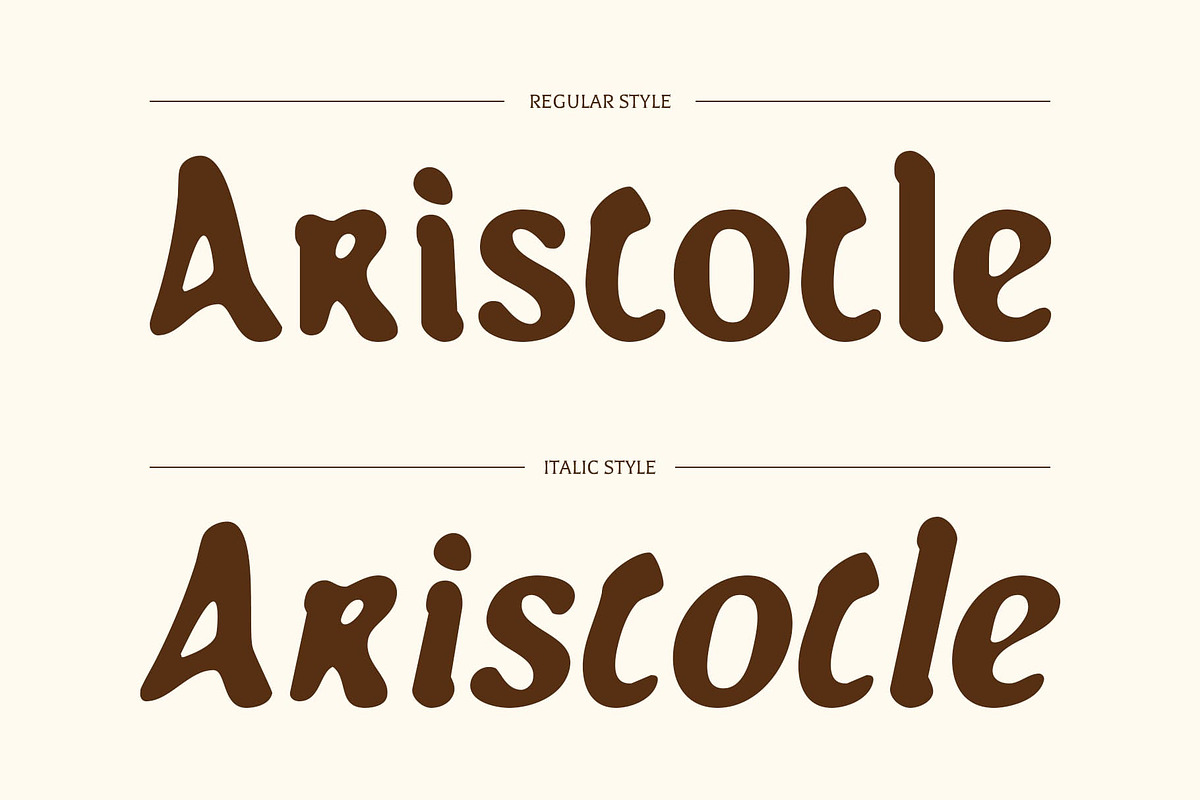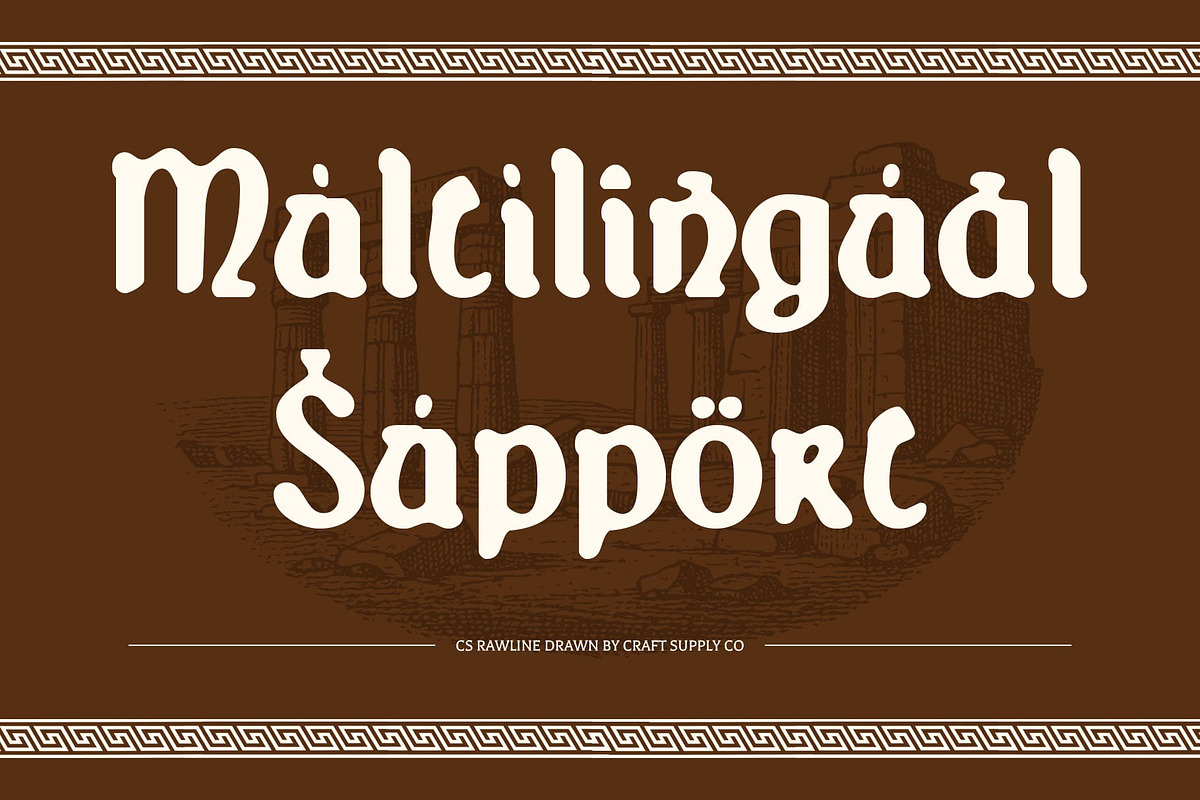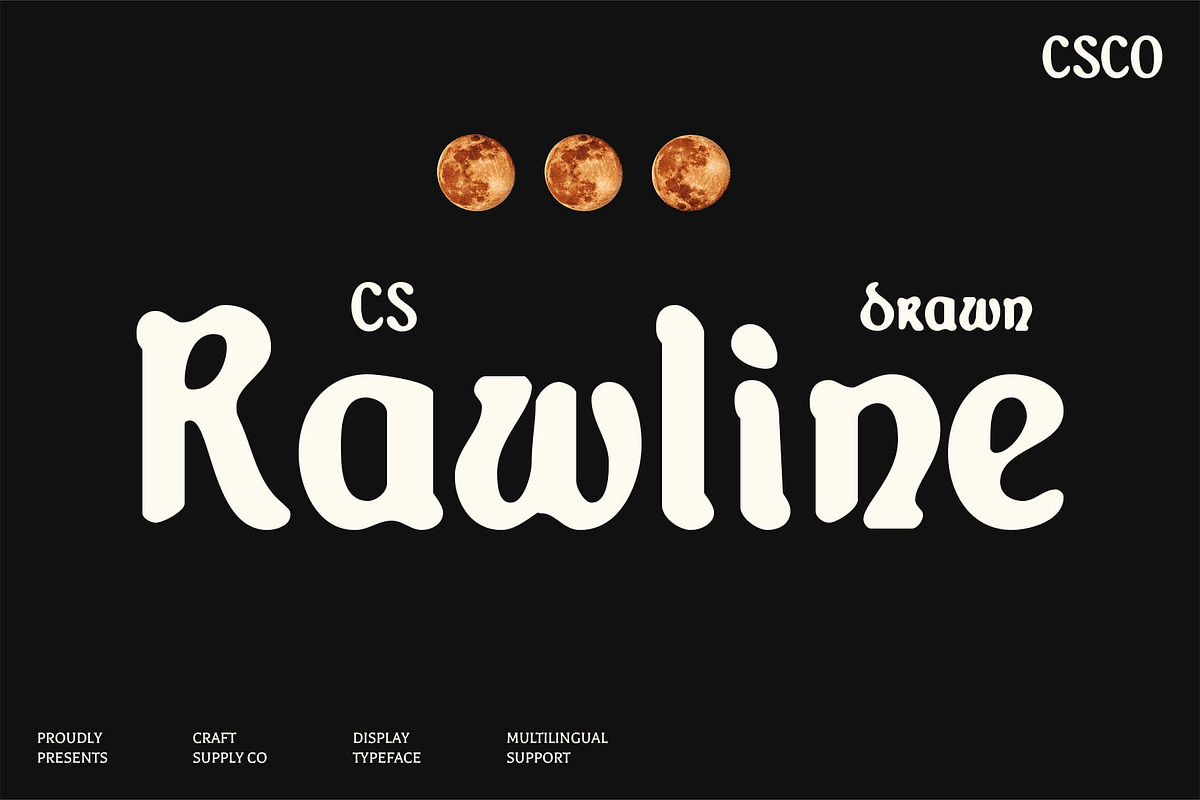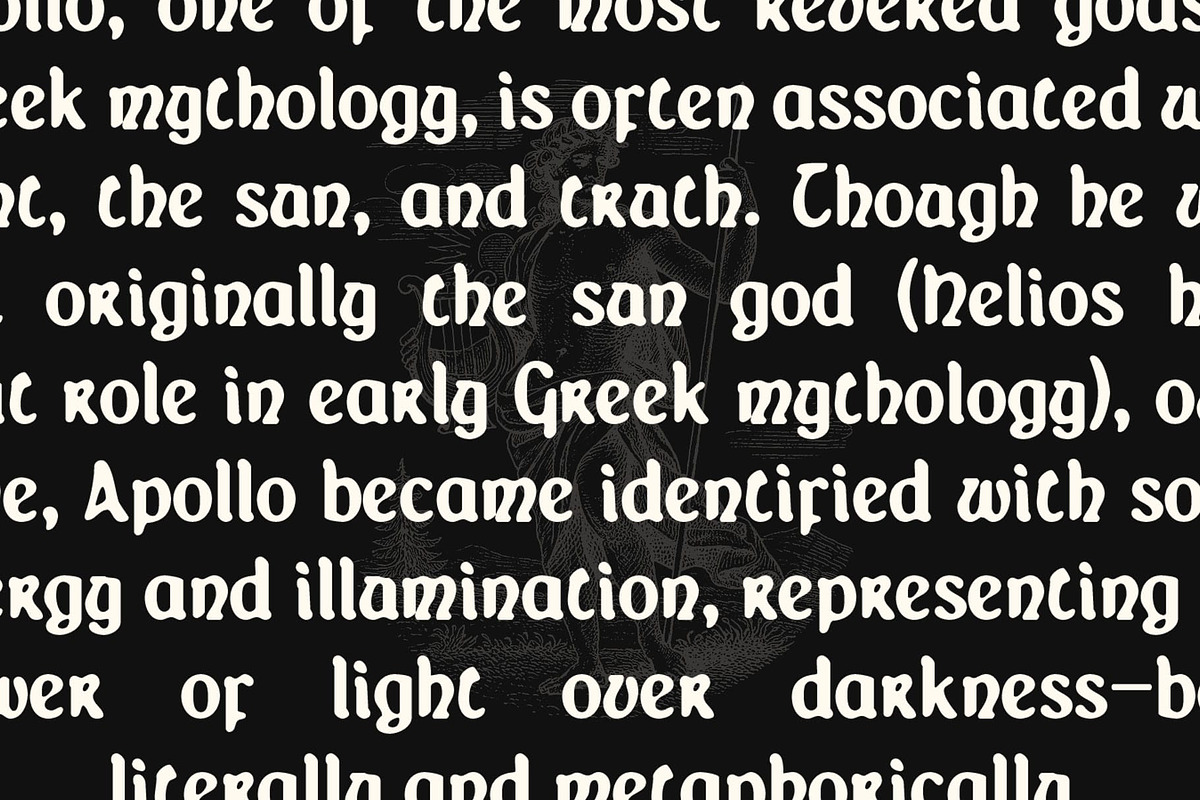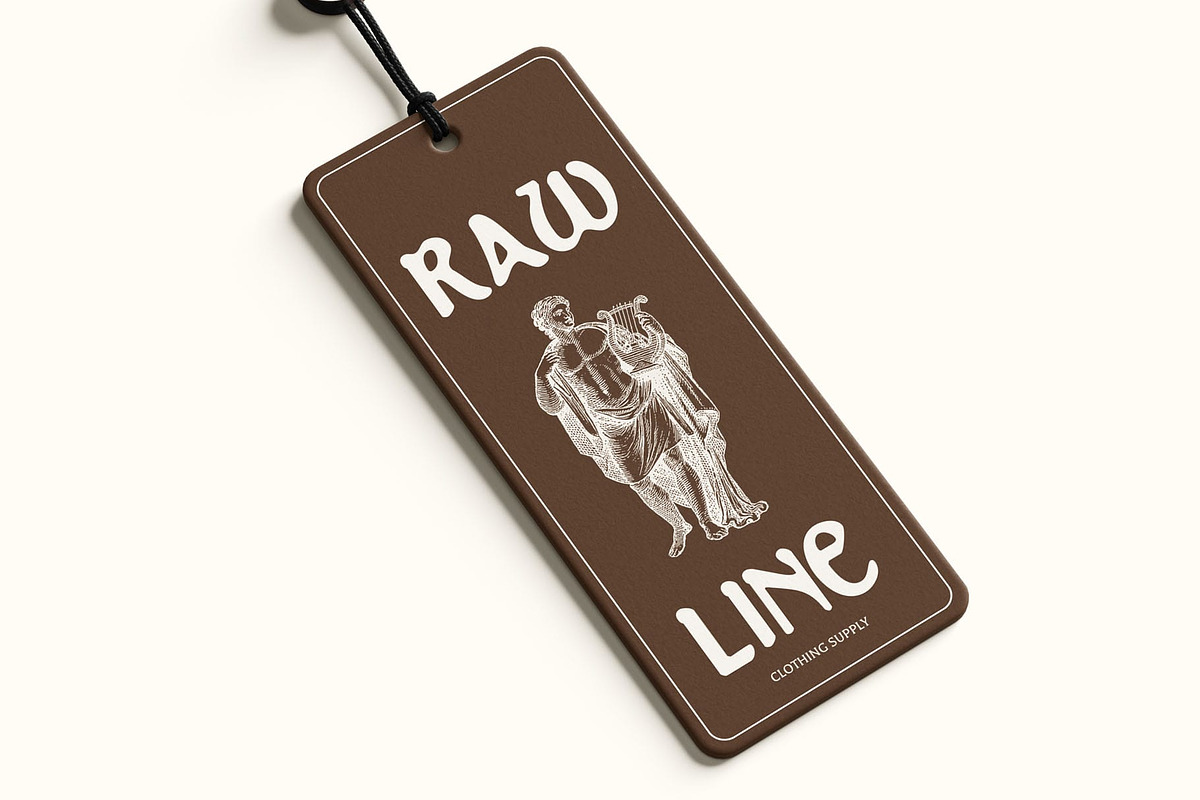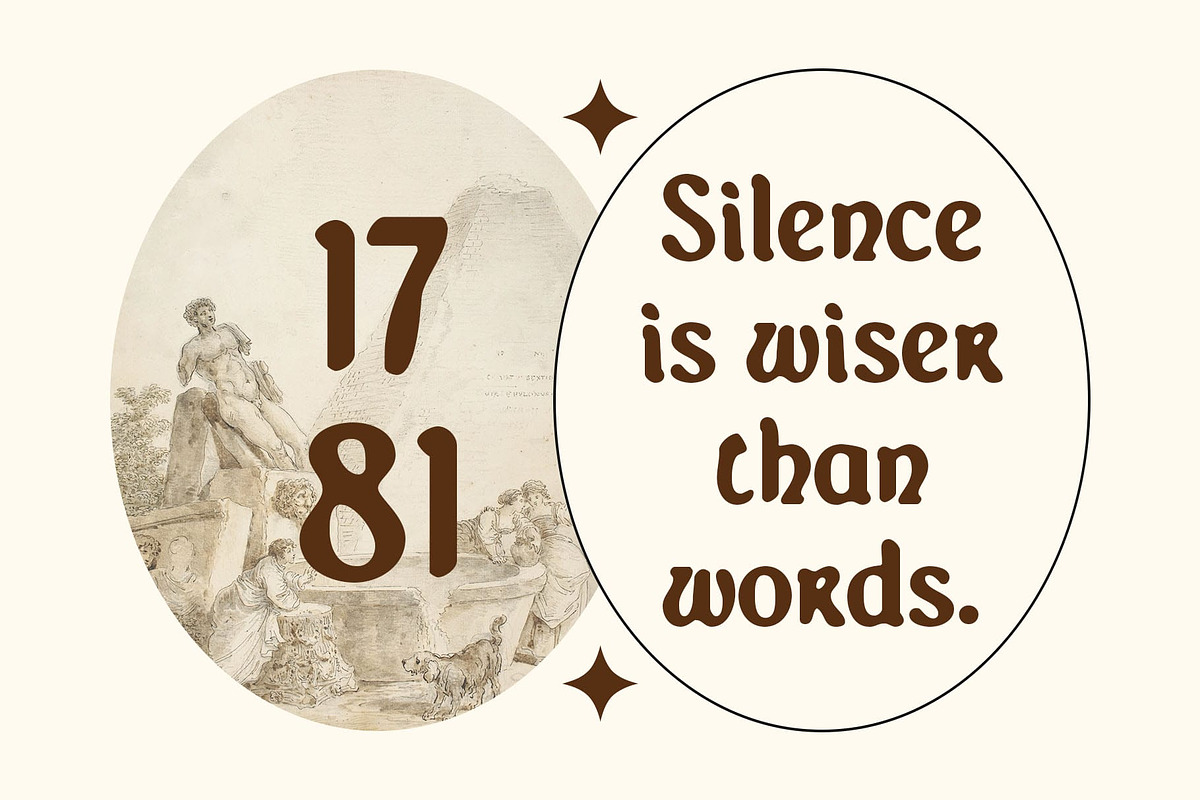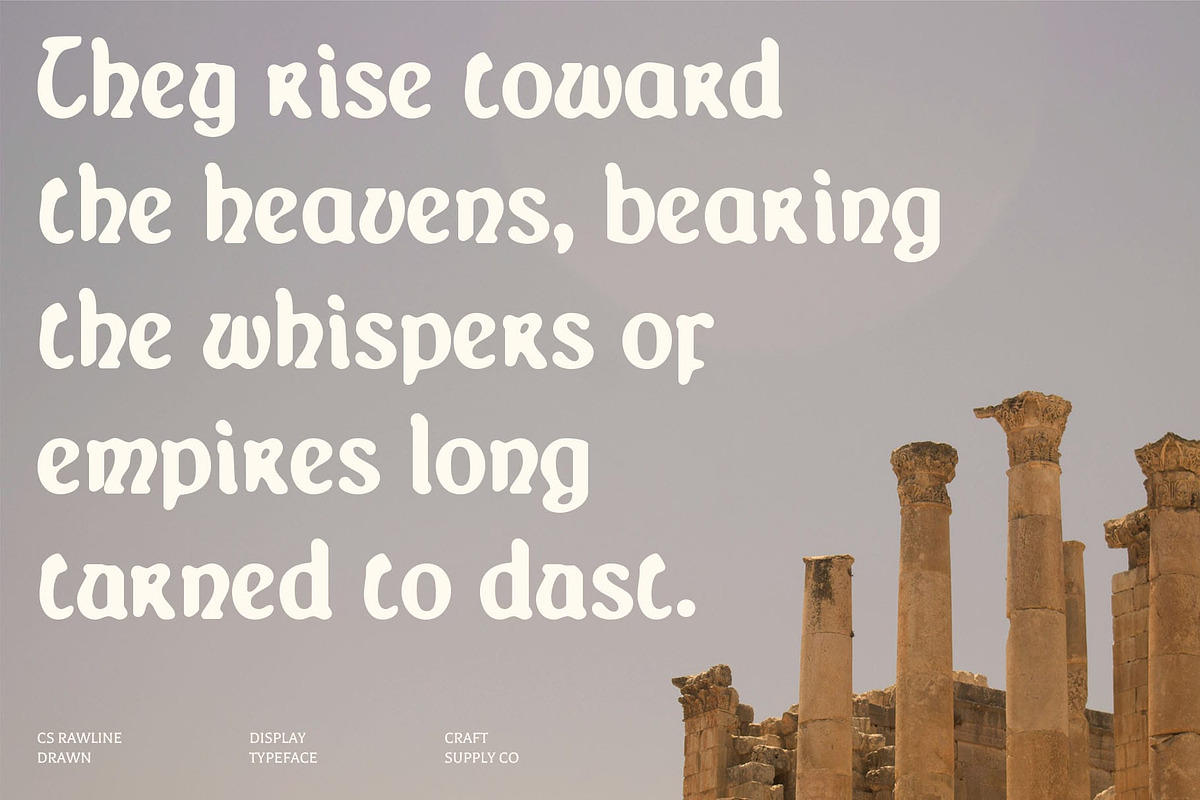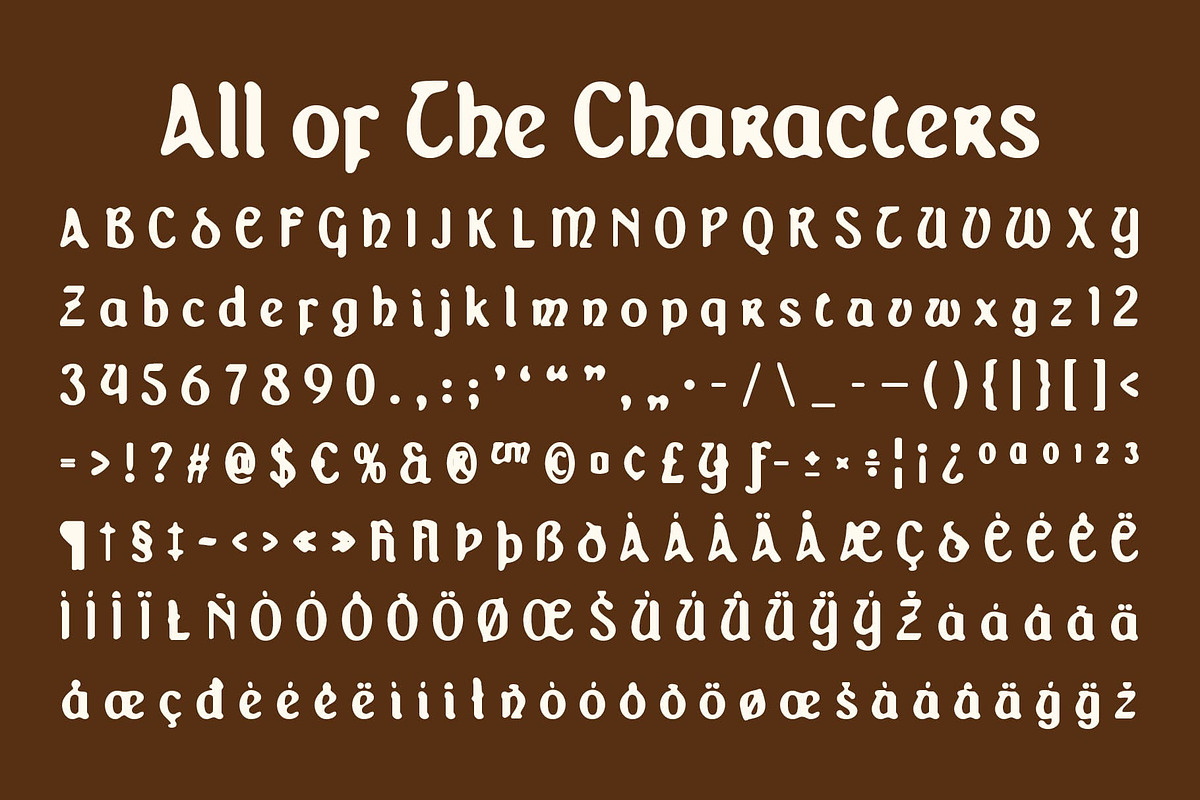
CS Rawline Drawn
CS Rawline Drawn: Classic Uncial with Handmade Charm
Display Font with Uncial Inspiration CS Rawline Drawn is a display font featuring classic uncial forms, inspired by the rounded letters of ancient manuscripts. Its design maintains readability while evoking a sense of tradition and historical authenticity, making it perfect for projects that honor classical aesthetics.
Handmade Drawn Texture Enhanced with a subtle drawn effect, each character gains a handcrafted texture that adds depth and personality. This artisanal touch transforms the uncial forms into lively, expressive typography that stands out in any design.
Blend of Tradition and Creativity By combining classical letter shapes with handmade detailing, this sophisticated and refined font achieves a harmonious balance between traditional authenticity and artistic flair. The result is a typeface that feels both historic and creatively engaging.
Versatile for Creative Applications Ideal for posters, branding, book titles, and traditional-themed creative projects, this cultural and heritage-inspired font adapts seamlessly across a variety of design contexts. Its combination of clean, readable forms with handcrafted nuance ensures every project conveys a traditional yet artistic vibe.
Elevated Presence in Every Design With its rounded uncial shapes, careful proportions, and subtle drawn texture, this classic and historical font adds character and sophistication to any project. It’s a typeface that enhances designs with authenticity, artistry, and timeless appeal.